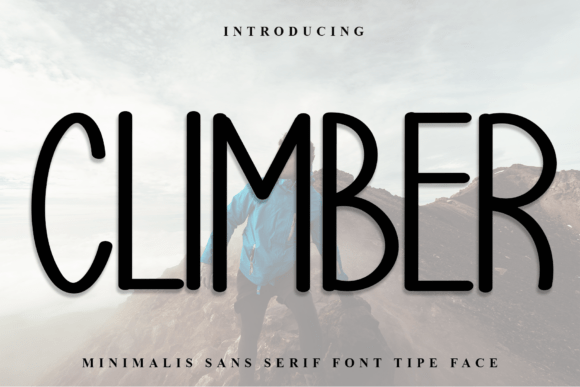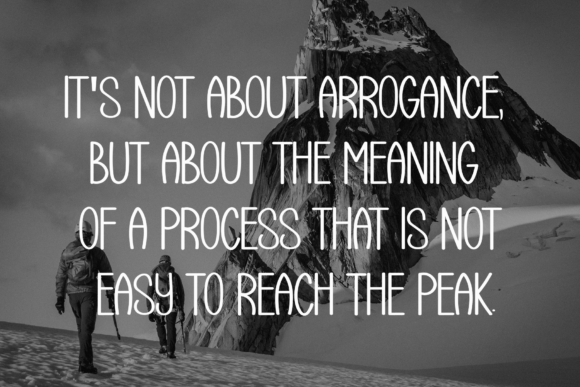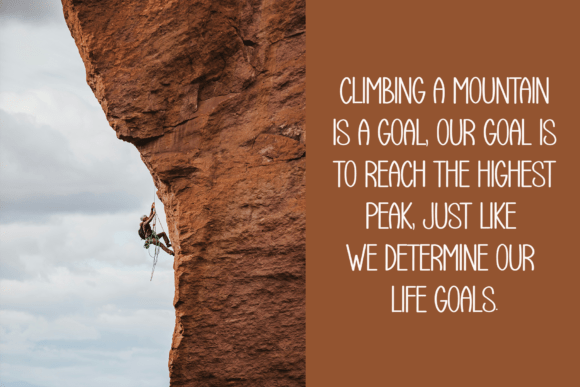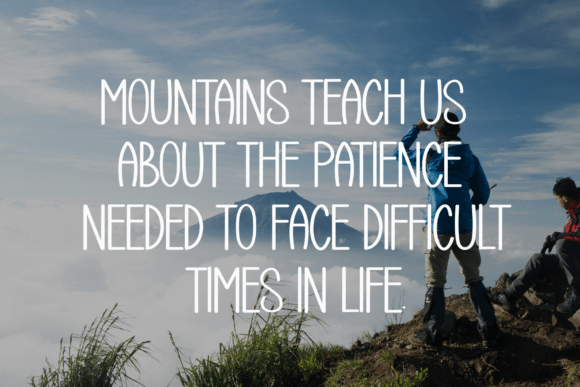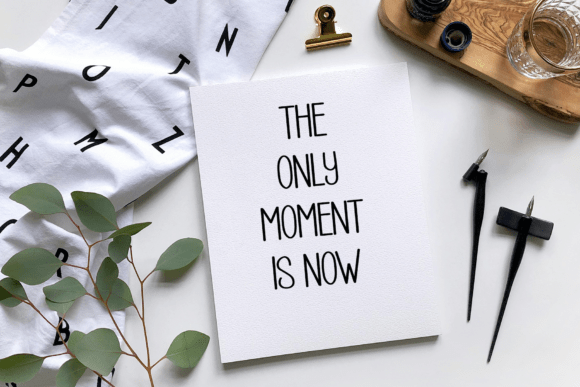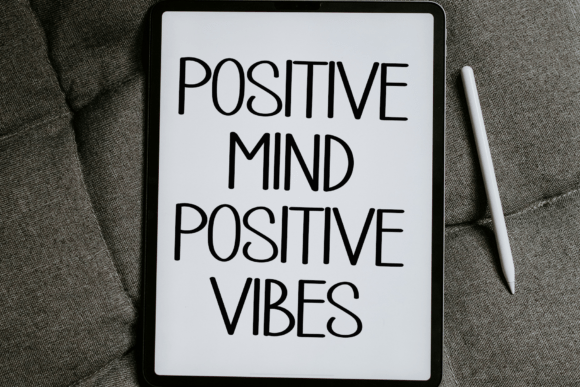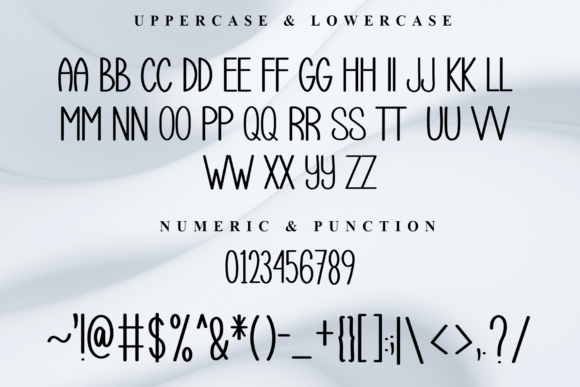
There’s nothing quite like the thrill of brainstorming a new idea for a creative project. You’ve got a spark of inspiration, a vision in your mind, and a blank canvas waiting to be filled with color and life. But, let’s be honest – the right font can make all the difference between a good design and a great one. That’s where the Climber Font comes in – a casual and creative typeface that exudes warmth and friendliness.
With its round, playful strokes, Climber Font creates a relaxed and approachable feel that’s perfect for personal projects, invitations, and social media graphics. The font’s charming, hand-drawn aesthetic adds a fun and unique touch to any design, making it a valuable tool for designers looking to add some personality to their work.
Climber Font Key Features
- Unique Characteristics: Climber Font features a unique blend of modern and vintage elements, with a distinctive climbing-inspired design aesthetic.
Climber Font Review
I recently had the chance to work with the Climber Font, and I’m here to give you my honest take on it.
- Unique Character**: Climber Font has a distinctive, adventurous feel to it that sets it apart from other fonts.
- Good Legibility**: Despite its rugged appearance, Climber Font is surprisingly easy to read, even at smaller sizes.
- Customization Options**: The font includes a range of styles and weights, making it versatile enough for a variety of design applications.
- May Be Too Distinctive**: While Climber Font’s unique character is a strength in some contexts, it may be too much for more conservative designs.
- May Not Work Well for Body Text**: Due to its bold, adventurous feel, Climber Font may not be the best choice for large blocks of text.
Climber Font is a solid choice for designs that need a bold, adventurous feel. While it may not be the best fit for every project, it’s definitely worth considering for applications like outdoor gear, travel, or action sports branding. With a little care and attention to balance, Climber Font can add a unique touch to your designs.
Tips for Getting the Most Out of Climber Font
For the best results, use Climber Font in conjunction with bold or italic text to create visual interest. You can also experiment with different font sizes and colors to create a unique look.
Climber Font is ideal for use in headings, titles, and body text where a fun and energetic feel is desired. It’s particularly well-suited for use in social media graphics, advertising materials, and websites targeting a younger audience.
Alternatives to Climber Font
Montserrat is a sans-serif font with a geometric feel. It’s perfect for use in modern designs, especially for digital products and websites. Montserrat is more geometric and clean compared to Climber Font, which has a more handwritten feel. It’s ideal for creating a sleek and modern aesthetic.
Open Sans is a clean and friendly sans-serif font. It’s highly legible and suitable for use in a wide range of applications, including body text and headings. Open Sans is more neutral compared to Climber Font, which has a unique character. It’s a great choice for creating a professional and approachable design.
Lato is a sans-serif font with a modern and elegant feel. It’s perfect for use in designs where a touch of sophistication is needed. Lato is more refined compared to Climber Font, which has a more casual feel. It’s ideal for creating a premium and high-end aesthetic.
Q: Can I customize the Climber Font for my project?
Yes, you can customize the Climber Font to suit your project’s needs. The font includes a range of OpenType features, such as ligatures, swashes, and stylistic sets, which can be accessed using design applications that support OpenType. Additionally, you can use font editing software to modify the font’s characteristics, such as font weight, spacing, and kerning.